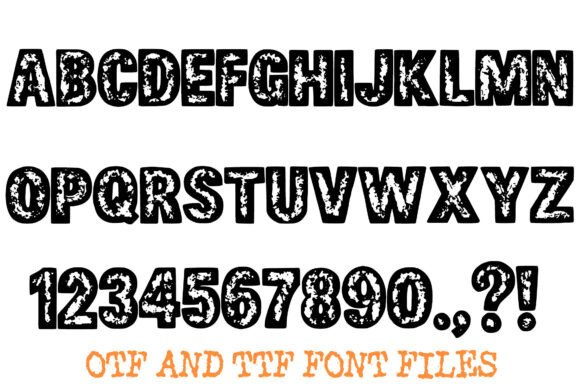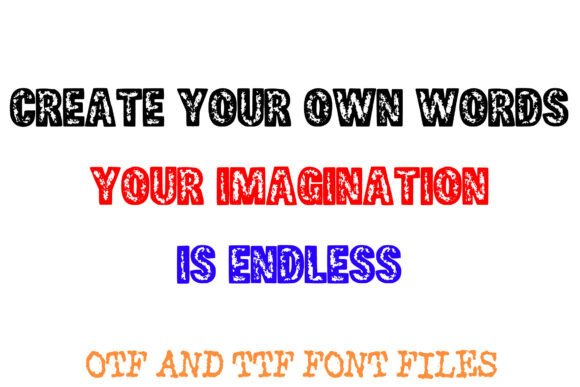
Introduction to Distressed Grunge Font
Unleash raw, untamed energy into your designs with Distressed Grunge Font.
This powerful and authentic typeface perfectly captures the essence of weathered surfaces, urban decay, and rebellious aesthetics Featuring a bold, assertive structure filled with a rich, gritty texture and a distinct outline, itโs more than just a font; itโs a statement piece designed to add immediate, edgy character to any creative project.
Key Features of Distressed Grunge Font
Why Choose Distressed Grunge Font?
Distressed Grunge Font offers exceptional quality and versatility, making it a valuable addition to your design toolkit. Whether you’re creating for personal projects or commercial use, Distressed Grunge Font delivers professional results.